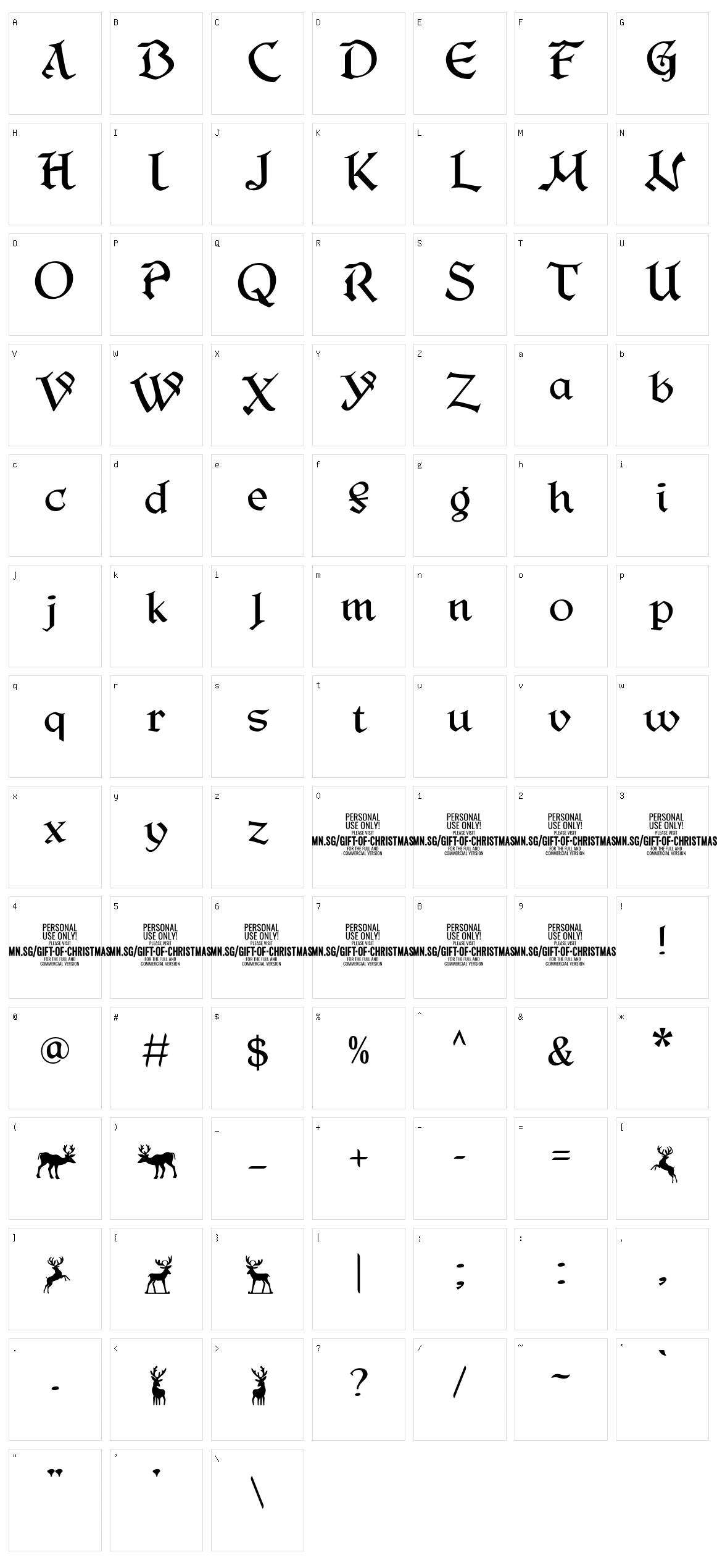
Gift Of Christmas is a traditional season typeface.
With decorative vintage letter forms, it aims to be your traditional type for Holiday contexts.
The lettering was designed and drawn by Måns Grebäck, created to fill a gap between medieval blackletter typography and roman serif letters.
The font is of high quality, and comes with an additional Xmas symbols.
Use the different parenthesis symbols ( ) { } [ ] < > to make reindeers.
Example: [ Feliz Navidad ]
The font is built with advanced OpenType functionality and has a guaranteed top-notch quality, containing stylistic and contextual alternates, ligatures and more features; all to give you full control and customizability.